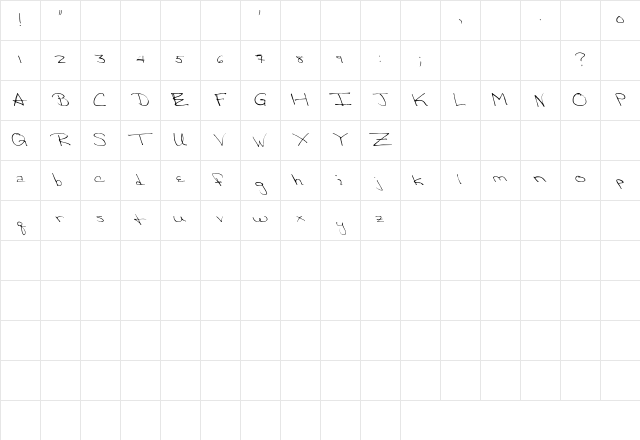
Victorias-Secre Regular Free Font
Victorias-Secre Regular
Complete Victorias-Secre Regular glyph index. Displaying only characters natively supported by Victorias-Secre Regular font.
Design Context for Victorias-Secre
Victorias-Secre is a composed and adaptable typeface that performs quietly and consistently across a wide range of design contexts.